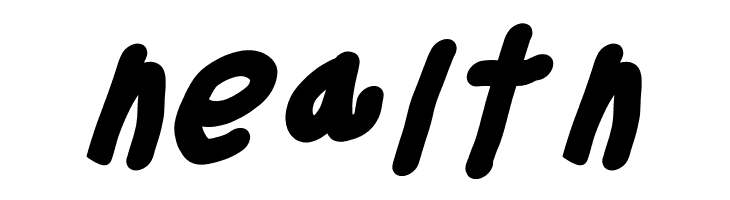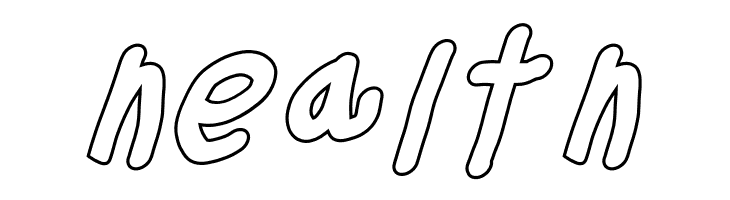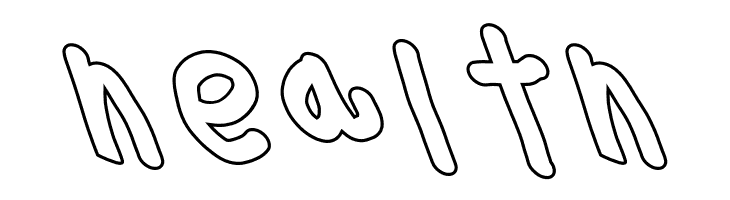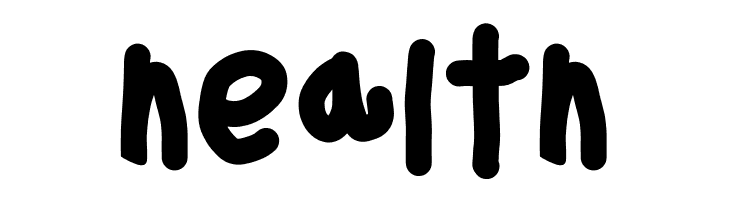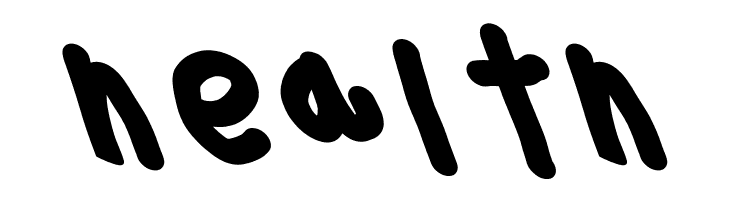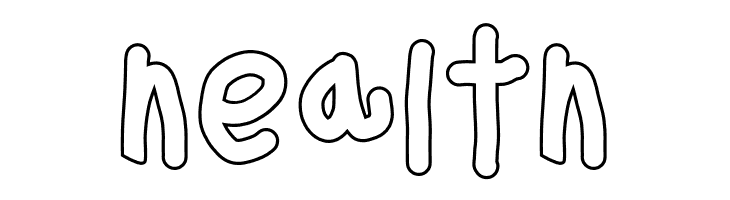
A bold, handwritten font with a playful, italicized style.
A playful, hand-drawn italic font with outlined characters.
A playful, hand-drawn font with thick, uneven strokes and a whimsical style.
A bold, rounded, and playful hand-drawn font.
A bold, hand-drawn font with thick strokes and a playful, informal style.
A playful, hand-drawn outlined font with a whimsical and casual style.